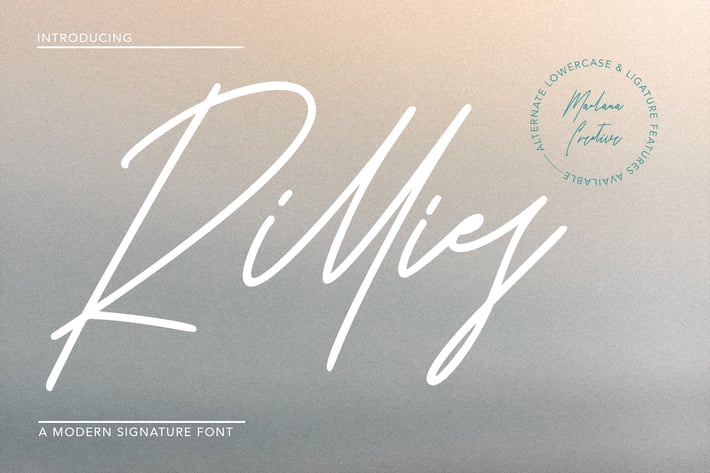
Rillies Modern Signature Font
Give your designs an authentic handcrafted feel. "Rillies Modern Signature Font" is perfectly suited to stationery, logos and much more.